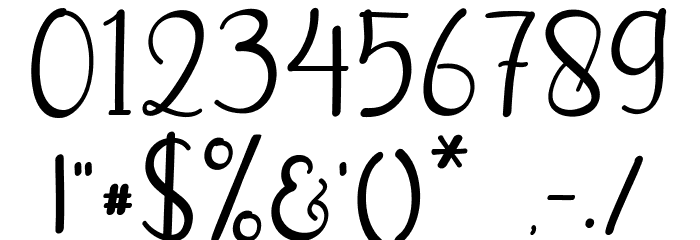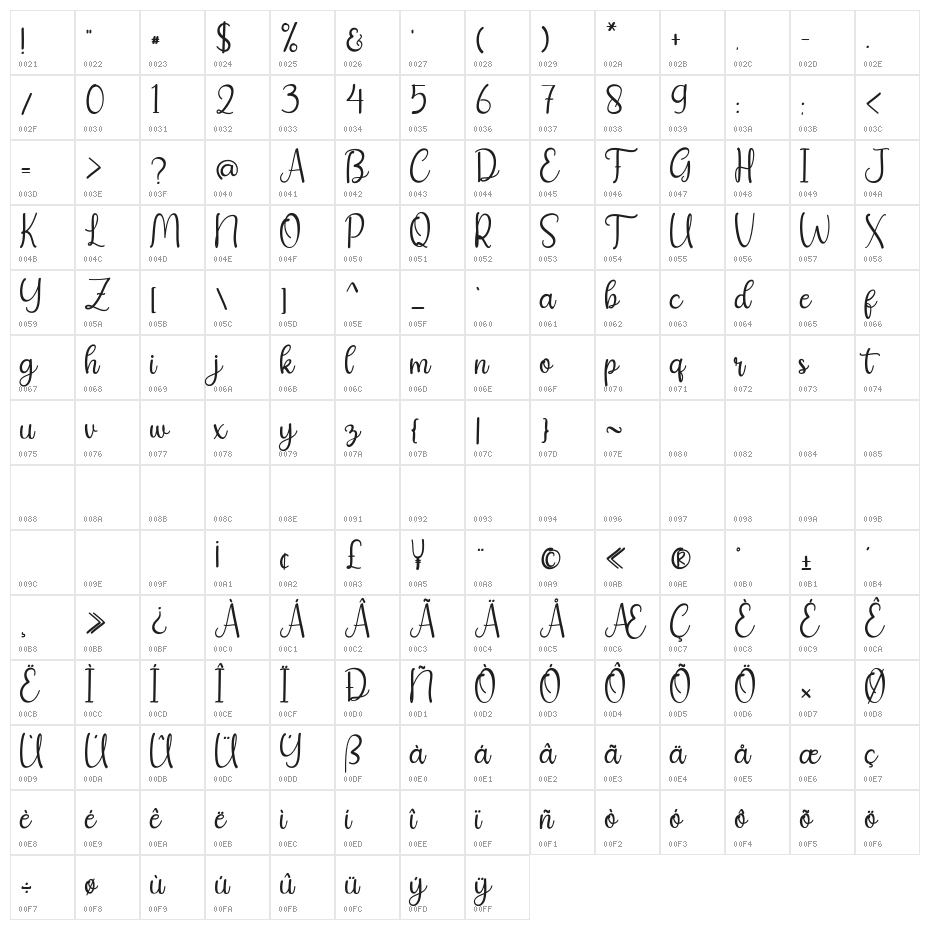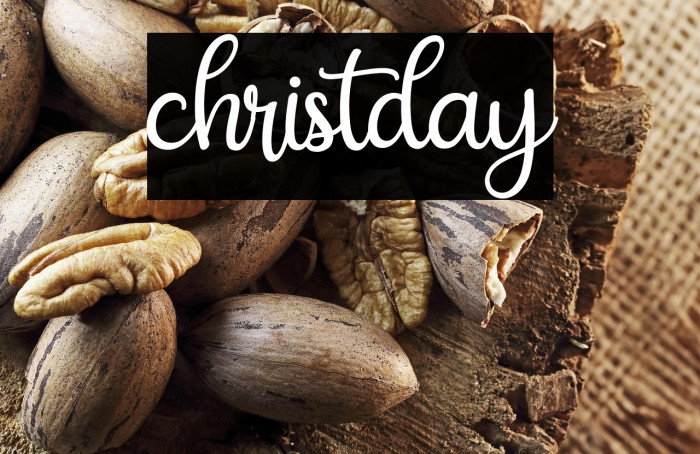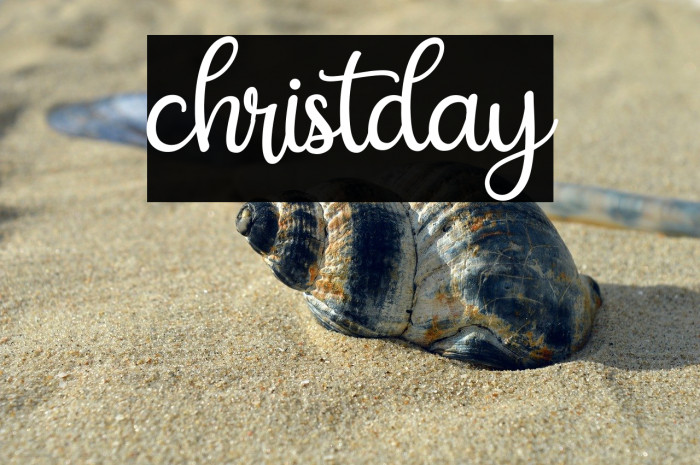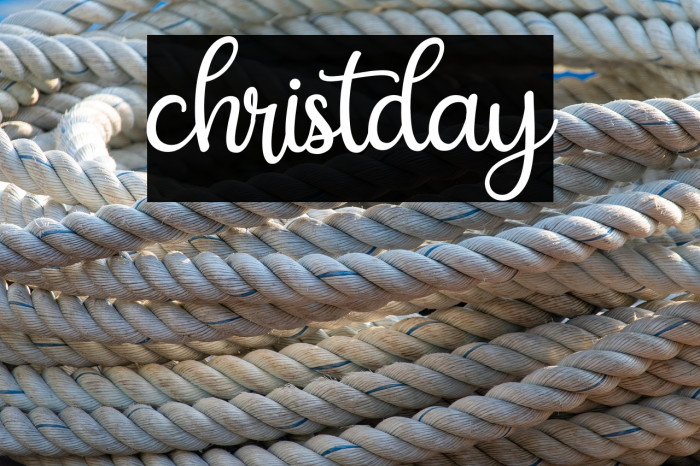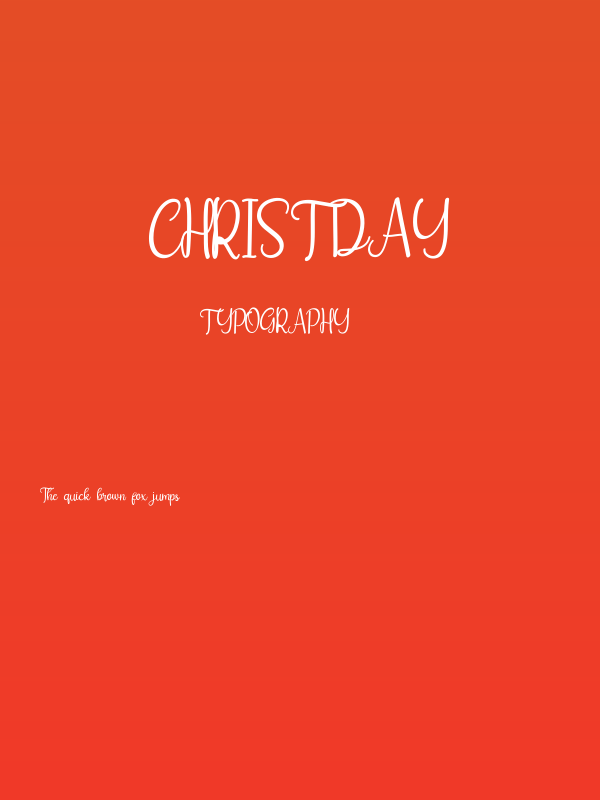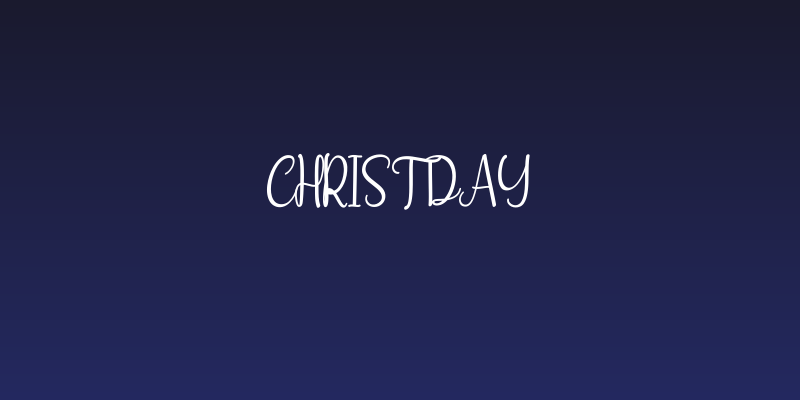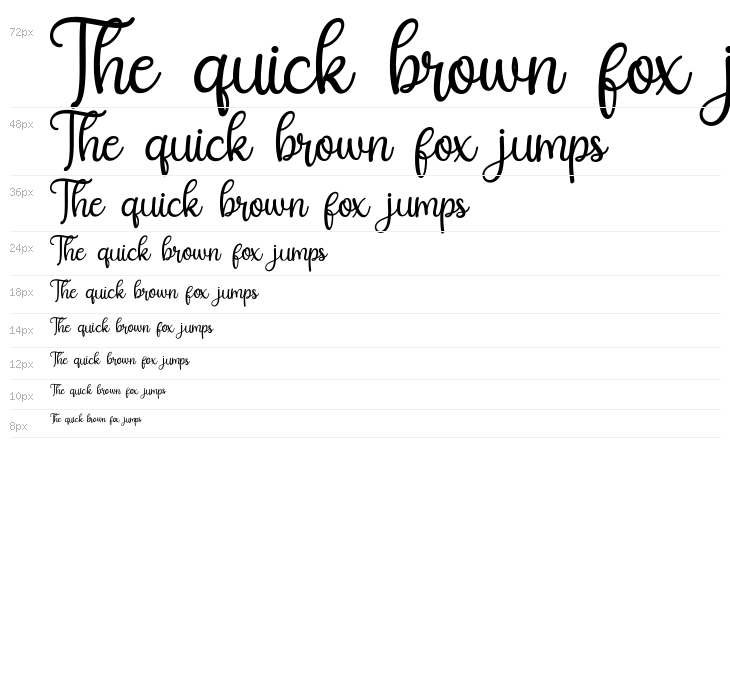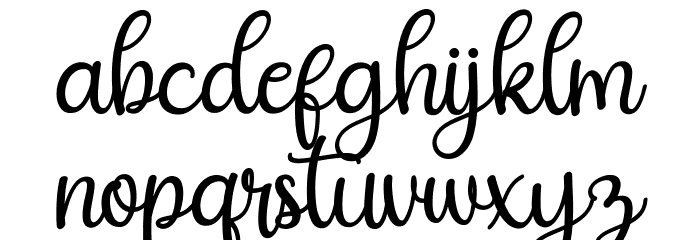
christday Font
christday Description
This font features a playful and flowing script style, characterized by its smooth, rounded edges and elegant curves. The uppercase letters are tall and slender, with a slight slant that adds a sense of motion and fluidity. The lowercase letters are more compact, maintaining the same graceful curves, which create a harmonious balance between the two cases. The numerals are consistent with the overall style, offering a clear and legible appearance. Special characters are thoughtfully designed to match the whimsical nature of the font, making it suitable for creative and informal applications.